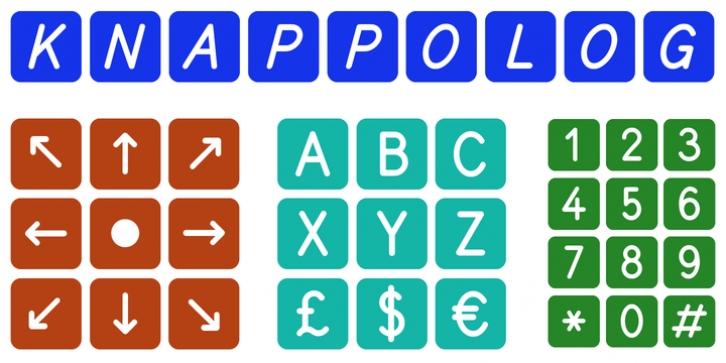
Knappolog was designed by Lars Törnqvist and published by Cercurius. Knappolog contains 2 styles and family package options.
Negative sans-serif capitals in squares with rounded corners, looking like computer keys or elevator pushbuttons.